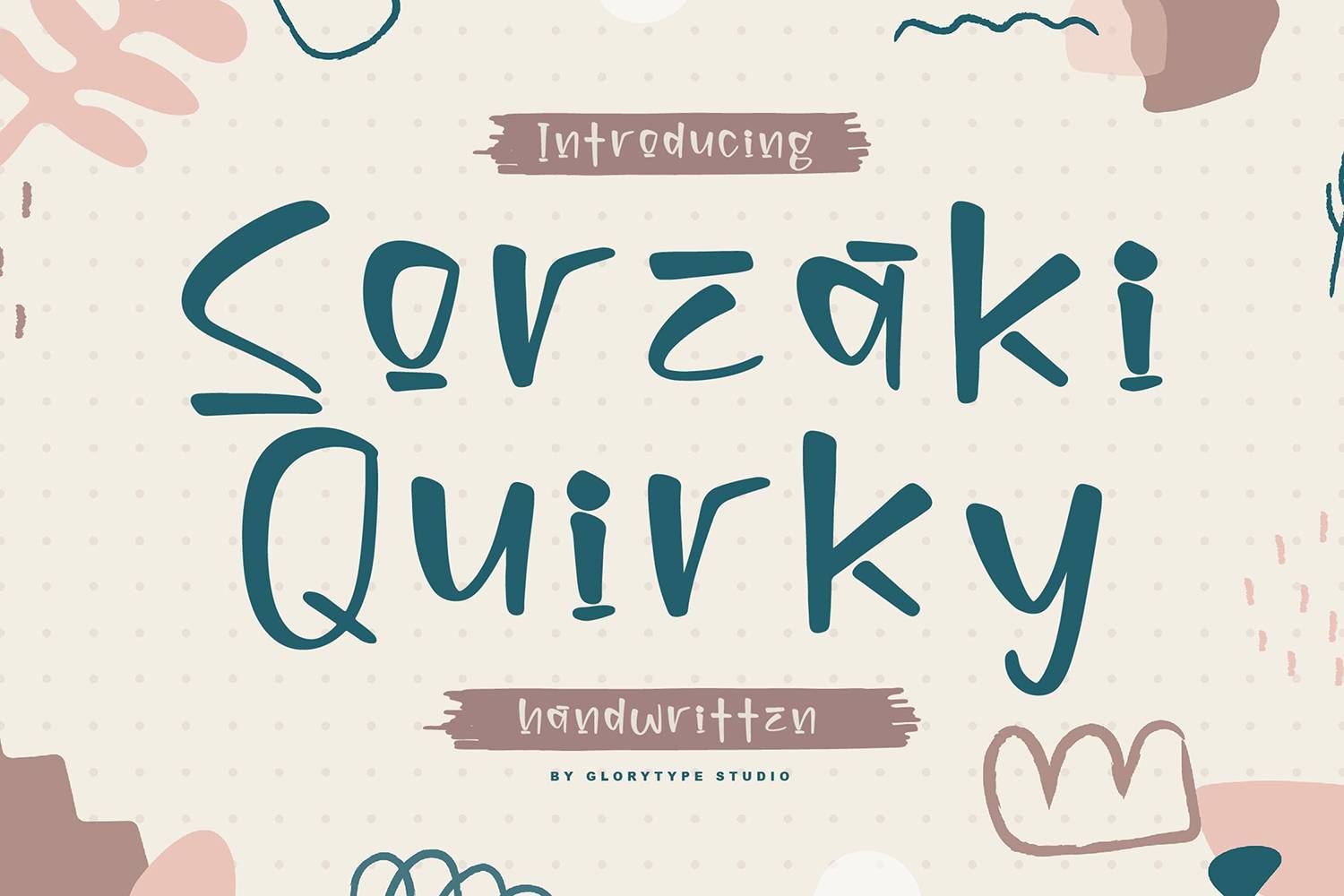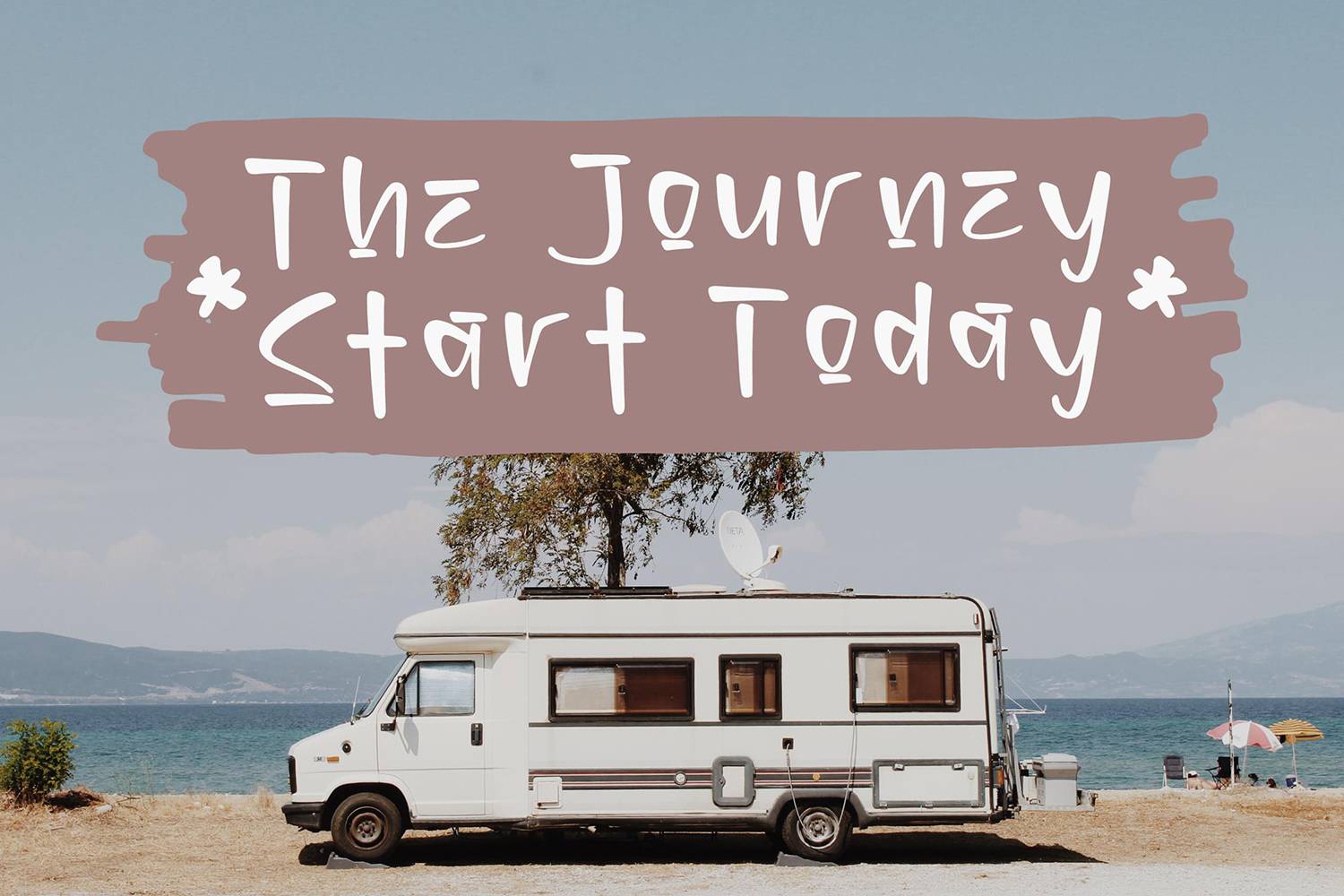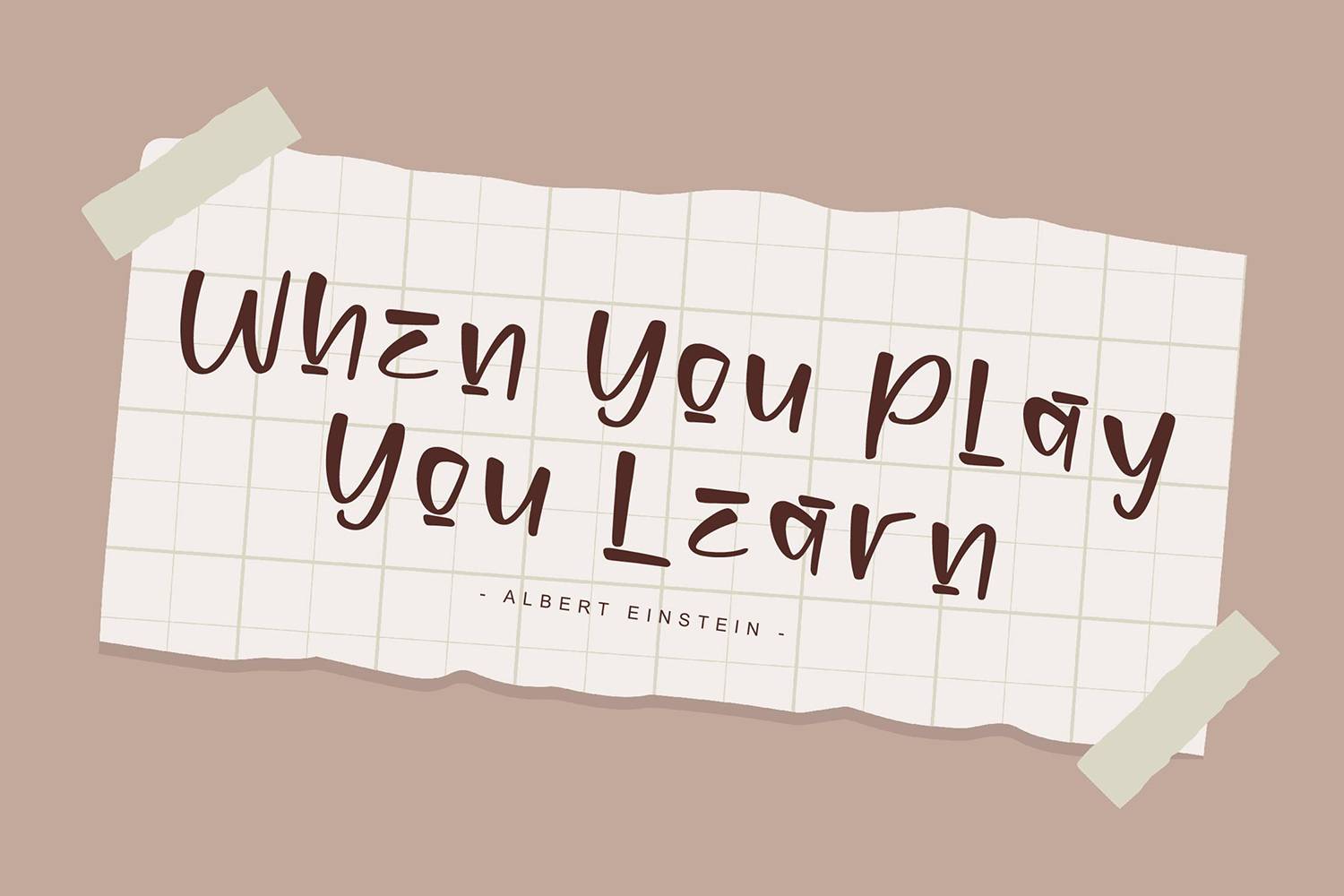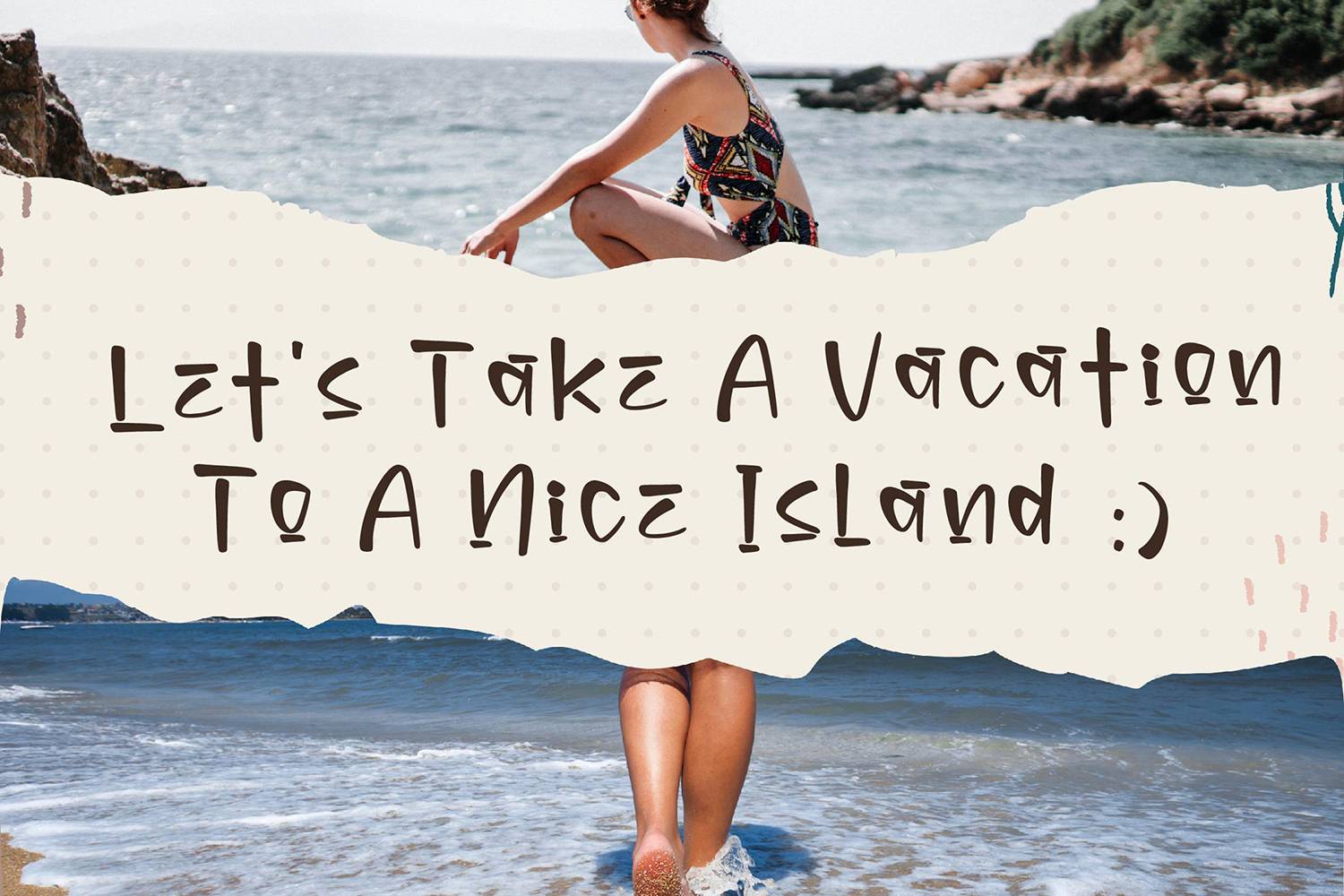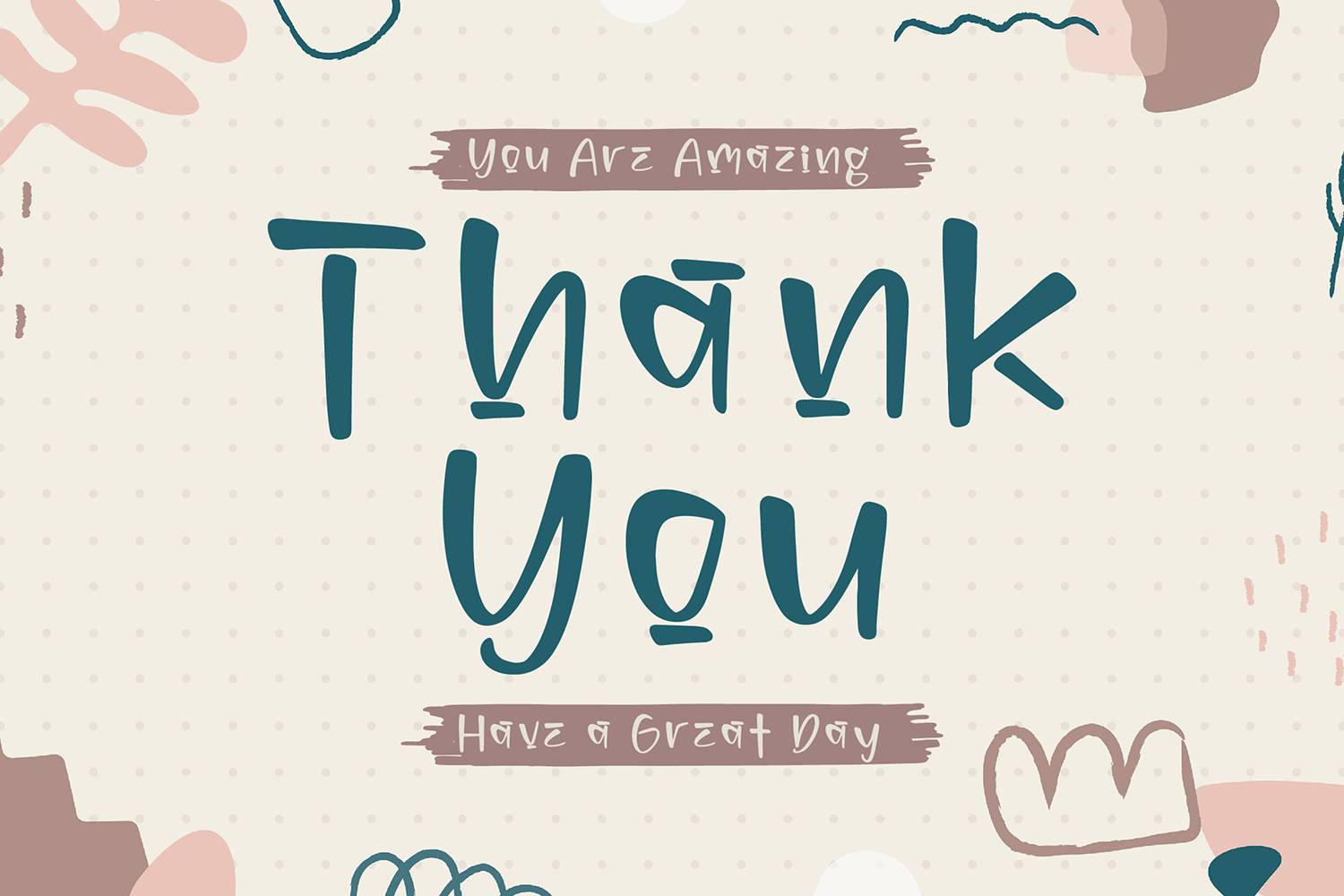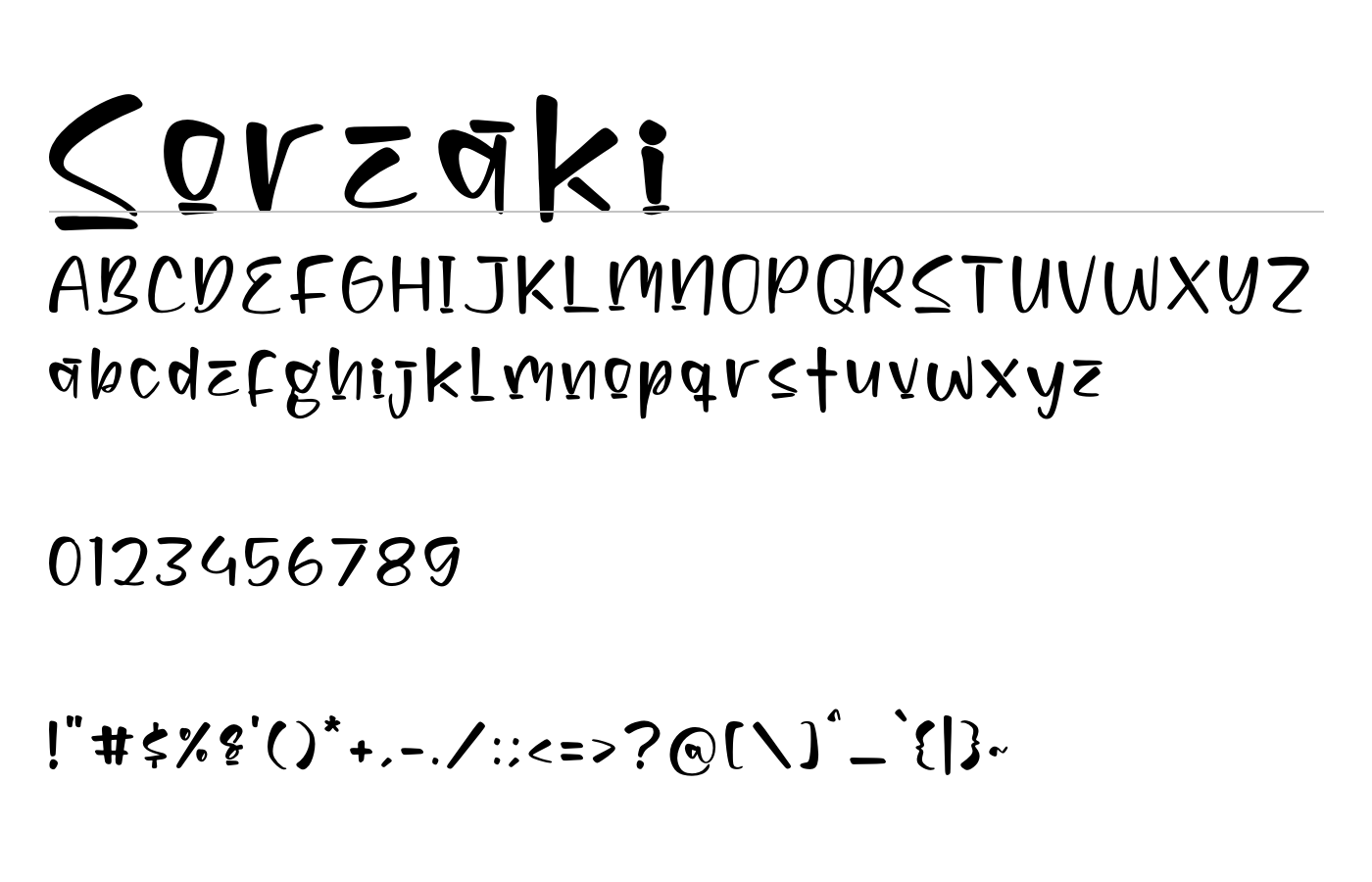
Soreaki is a playful, handwritten sans serif font with an informal and whimsical character. Its irregular strokes and quirky letterforms give it a casual, creative vibe, making it ideal for projects that seek a friendly and approachable look. This font works well for creative branding, children’s materials, and unique headlines that want to stand out with personality.
Soreaki Font
About Soreaki Font